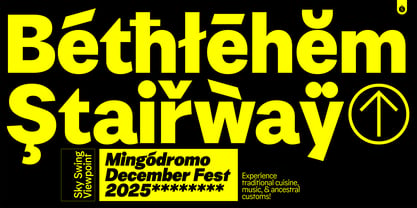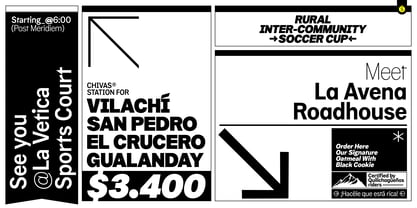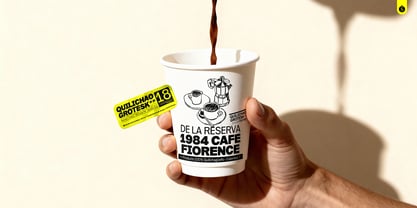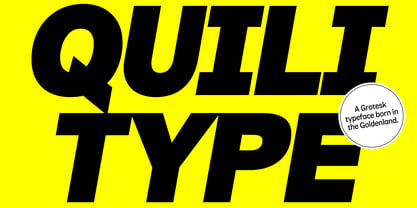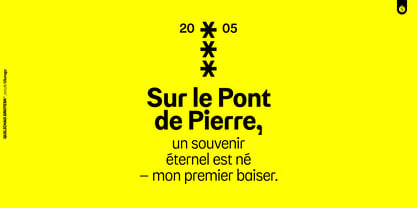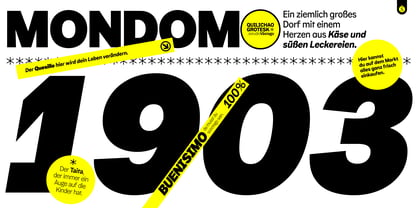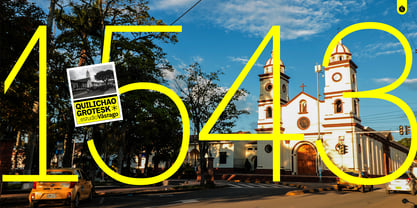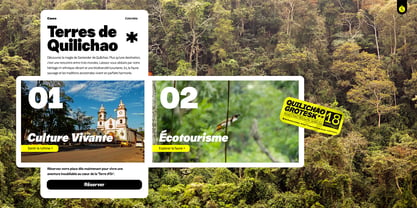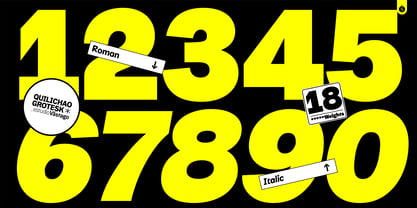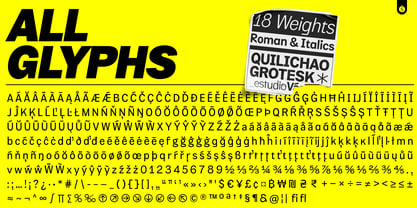
Quilichao Grotesk
At first glance, Quilichao Grotesk presents itself as a classic neo-grotesque: clean, rational, and grounded in a rigorous European structure. It is a robust variable family, built to solve complex identity systems through its weight and slant axes. But that first impression is only part of the story. Developed during an extended period in Santander de Quilichao, Colombia, the typeface reflects a shift in the design process itself. What began as a technique-driven approach evolved into a practice shaped by territory, time, and attention. In a place often perceived as culturally “small,” design became less about imposition and more about dialogue. Calm, community, and everyday rhythm quietly informed the letterforms. Its most distinctive gesture appears in the accents. The acute and grave marks deliberately break from convention, following the exact angle of the letter “V”—a subtle technical signature referencing Estudio Vástago. It’s a detail meant to be discovered, not announced. Quilichao Grotesk is a contemporary neo-grotesque that balances global rationality with lived experience. It performs with the precision of a Swiss watch, while carrying the pulse of Cauca—real, grounded, and unmistakably present.